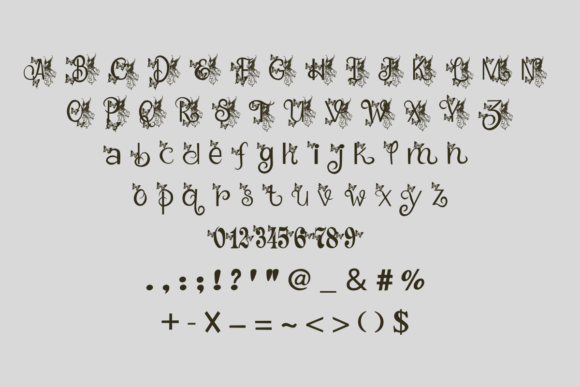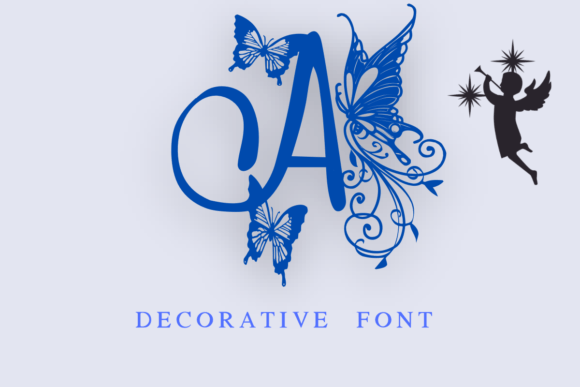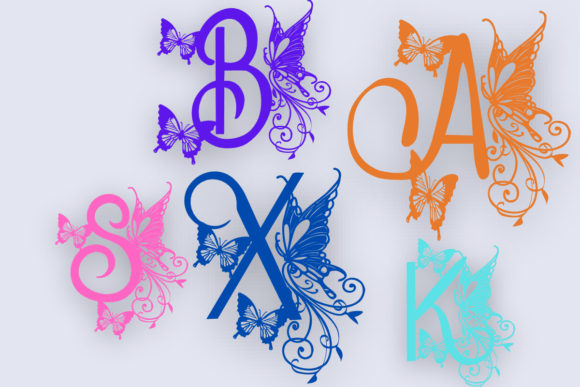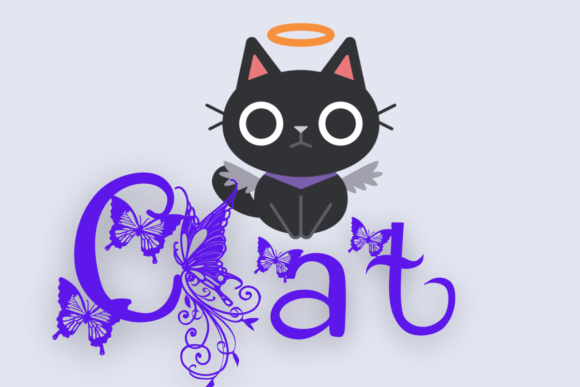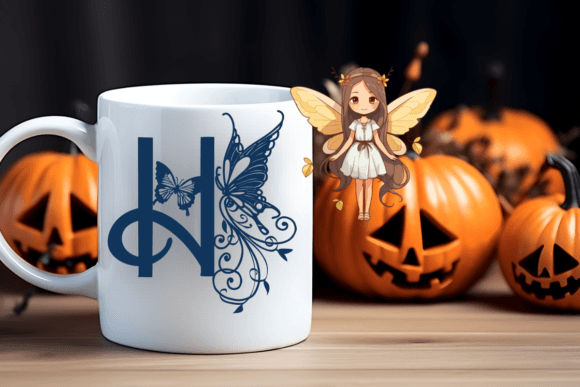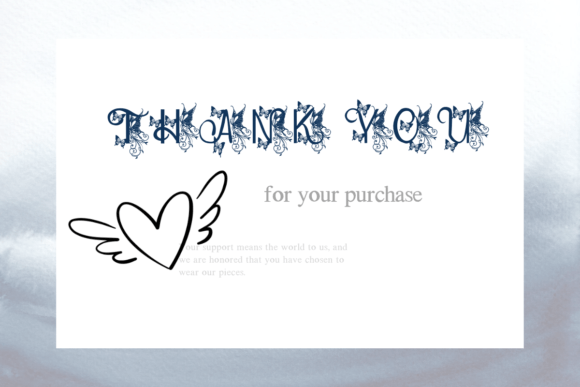
Discover the Heavenly Beauty of Angels Font: Elevate Your Designs with Elegance
Are you a designer, crafty enthusiast, or simply someone who appreciates the beauty of typography? Look no further! We’re excited to introduce you to Angels Font, an organic and stunning decorative font that is sure to become a treasured addition to your font library. With its lovely ornaments and elegant flair, Angels Font has the potential to elevate any creation, regardless of the topic or project.
The Beauty of Angels Font
Angels Font is a true masterpiece, boasting an organic and beautiful design that exudes elegance and sophistication. This decorative font features lovely ornaments that add a touch of whimsy and charm, making it perfect for a wide range of design applications. Whether you’re working on a branding project, creating wedding stationery, or crafting a social media graphic, Angels Font is sure to impress.
One of the standout features of Angels Font is its versatility. Its unique blend of classic and modern elements makes it suitable for various design styles, from vintage and rustic to modern and minimalist. This font is perfect for designers who want to add a touch of personality to their work without overpowering the content.
Why You’ll Love Angels Font
So, what makes Angels Font so special? Here are just a few reasons why you’ll love adding this beautiful font to your collection:
- Unique and eye-catching design: Angels Font features a distinctive and captivating design that will set your work apart from the crowd.
- Highly versatile: This font can be used for a wide range of design applications, from digital projects to print materials.
- Elegant and sophisticated: Angels Font exudes elegance and refinement, making it perfect for designs that require a touch of luxury.
- Lovely ornaments: The font’s ornaments add a charming and whimsical touch, making it ideal for designs that require a bit of personality.
Design Inspiration with Angels Font
Angels Font is perfect for a wide range of design projects, from romantic wedding stationery to elegant branding materials. Here are a few design ideas to get you started:
- Wedding invitations and stationery: Angels Font is perfect for creating beautiful and elegant wedding invitations, save-the-dates, and other stationery.
- Branding and packaging: This font is ideal for luxury brands that want to convey a sense of sophistication and elegance.
- Social media graphics: Angels Font can be used to create eye-catching social media graphics, such as quotes, posters, and flyers.
- Digital and print magazines: This font is perfect for creating beautiful and engaging magazine layouts, whether digital or print.
In conclusion, Angels Font is a stunning and versatile decorative font that is sure to become a treasured addition to your font library. With its lovely ornaments and elegant design, this font has the potential to elevate any creation, regardless of the topic or project. Whether you’re a designer, crafty enthusiast, or simply someone who appreciates the beauty of typography, Angels Font is a must-have font that will inspire your creativity and take your designs to the next level.